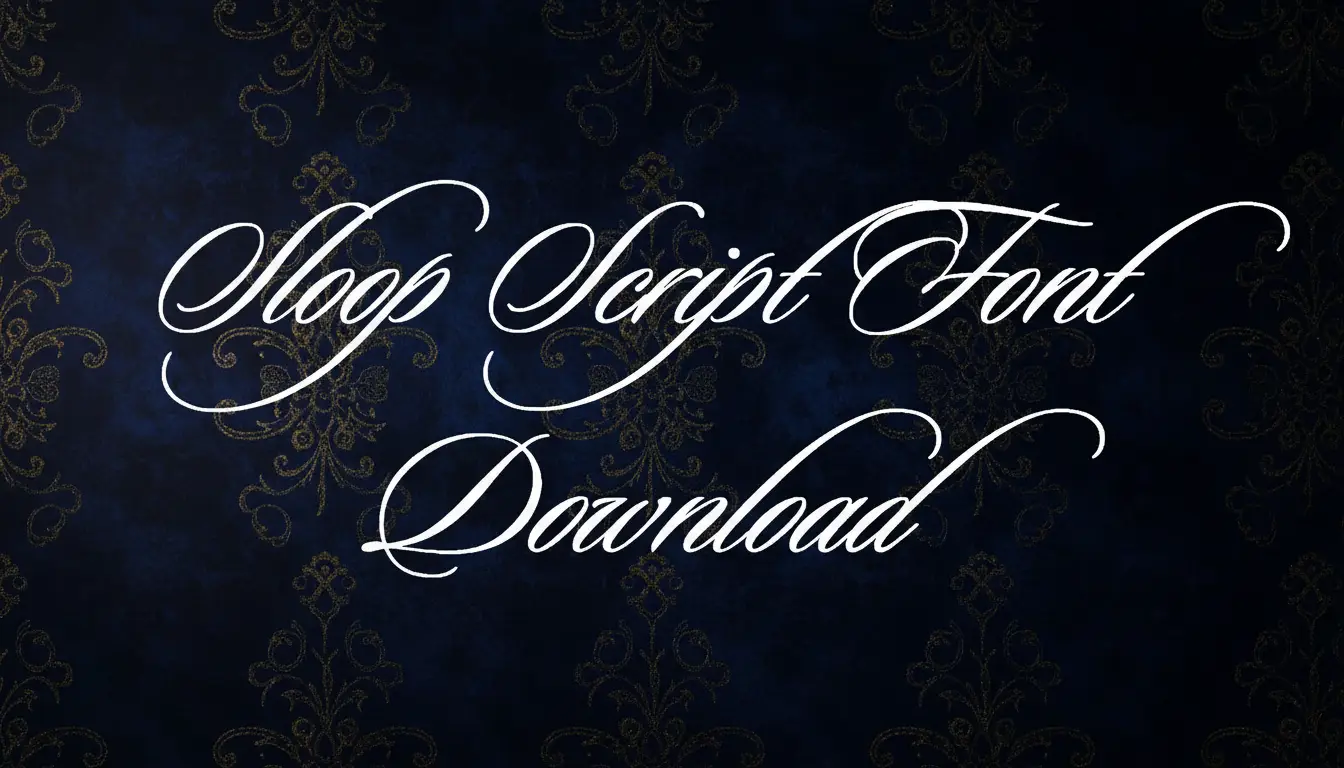
Celebrated letter artist Richard Lipton designed Sloop Script in 1994, drawing rich inspiration from the fluid style variations of late Newport calligrapher Raphael Boguslav. This premium, high-luxury calligraphic cursive family features sweeping gestural strokes, dramatic flourishes, and an elite formal presence. Top designers frequently choose Sloop Script for high-end luxury branding, formal wedding invitations, premium cosmetic packaging, hotel logos, and luxury magazine editorials.
Sloop Script
Sloop Script is a calligraphy font (1999).